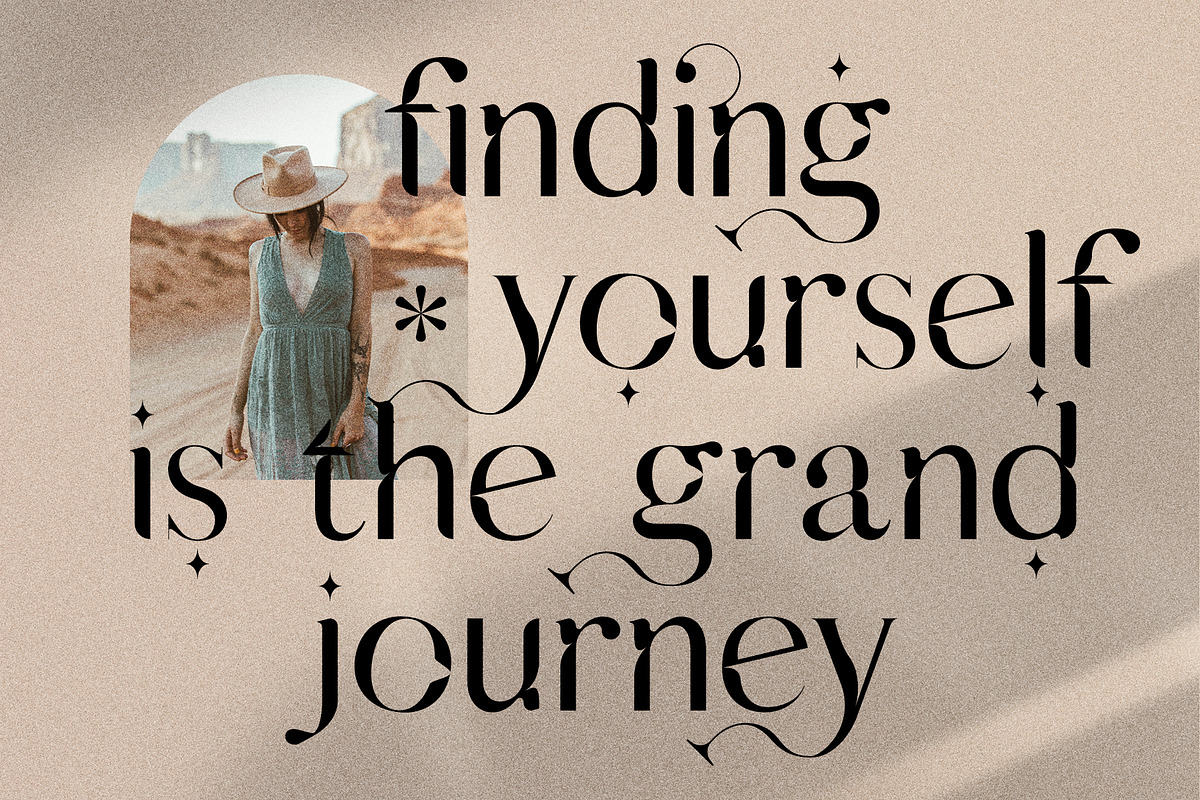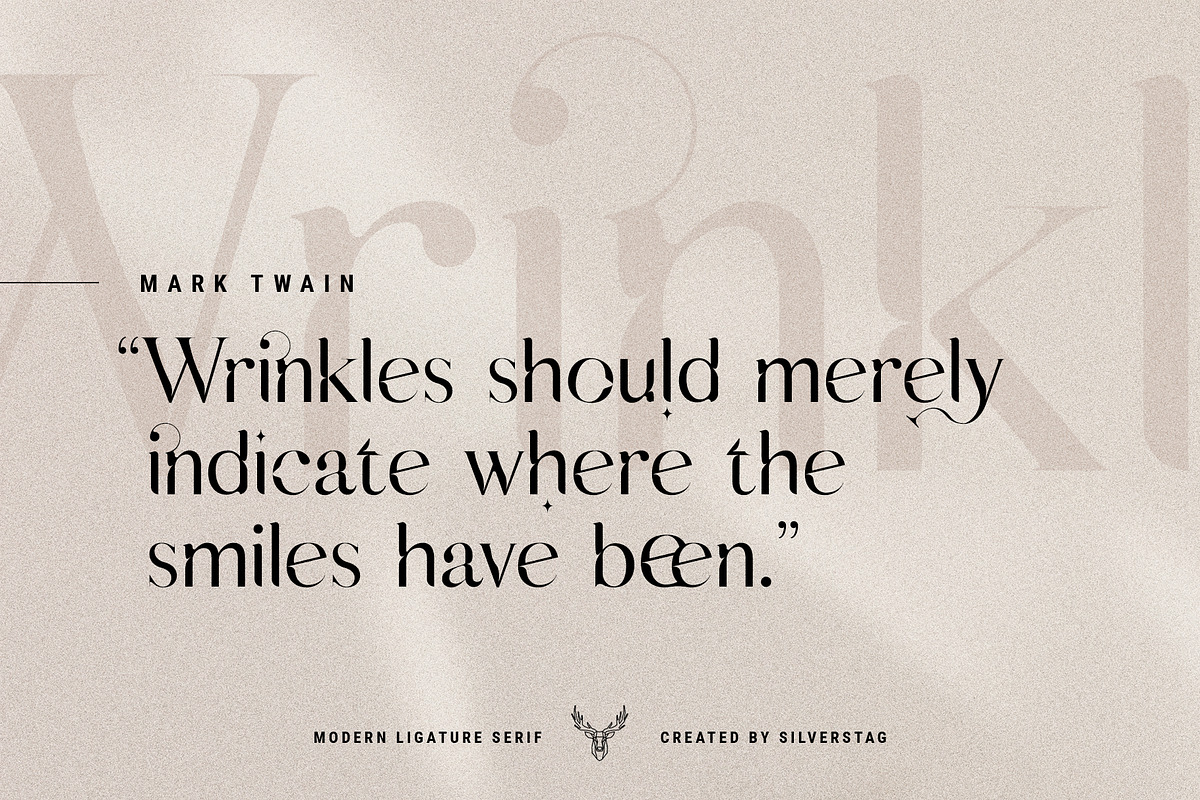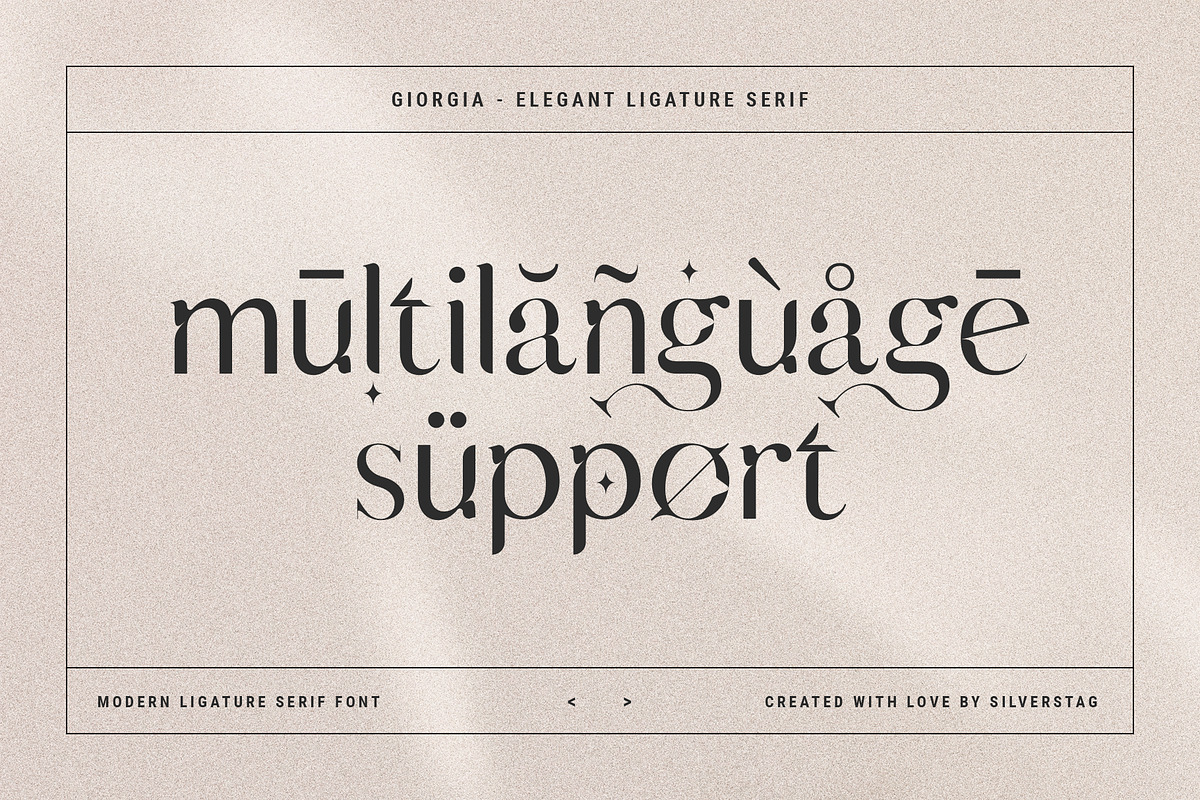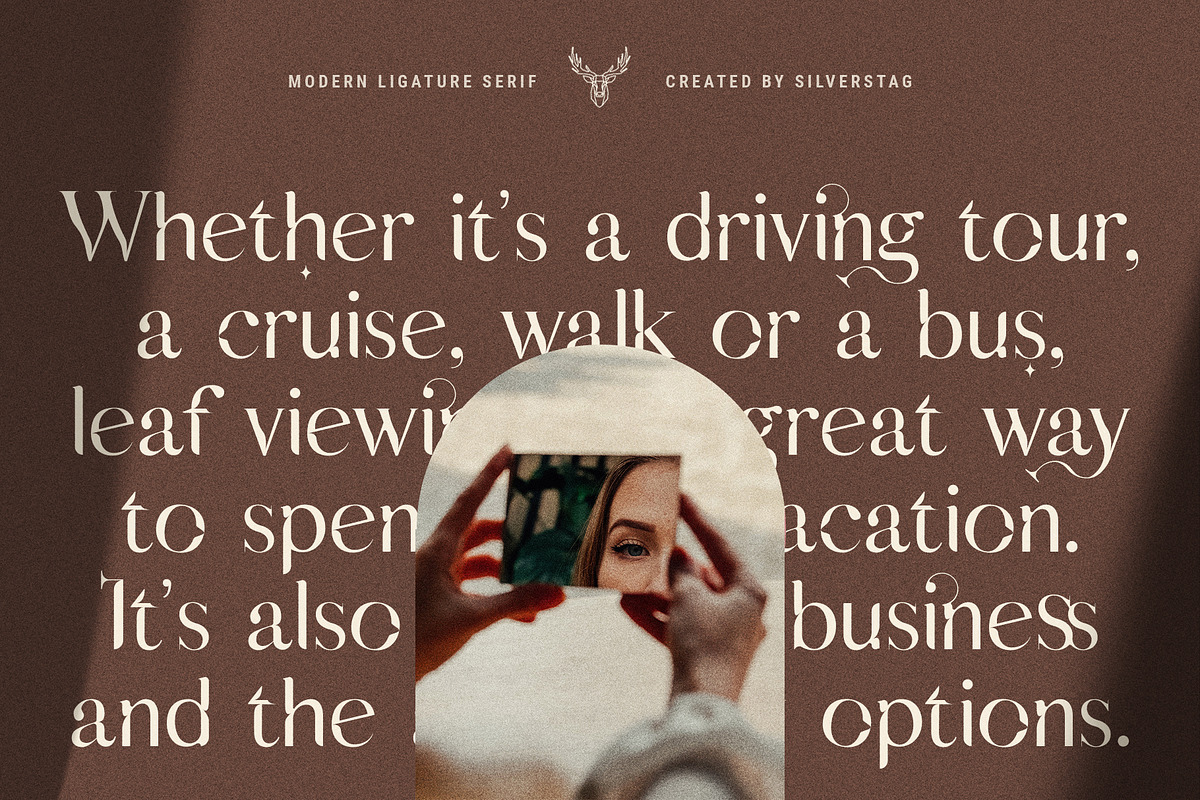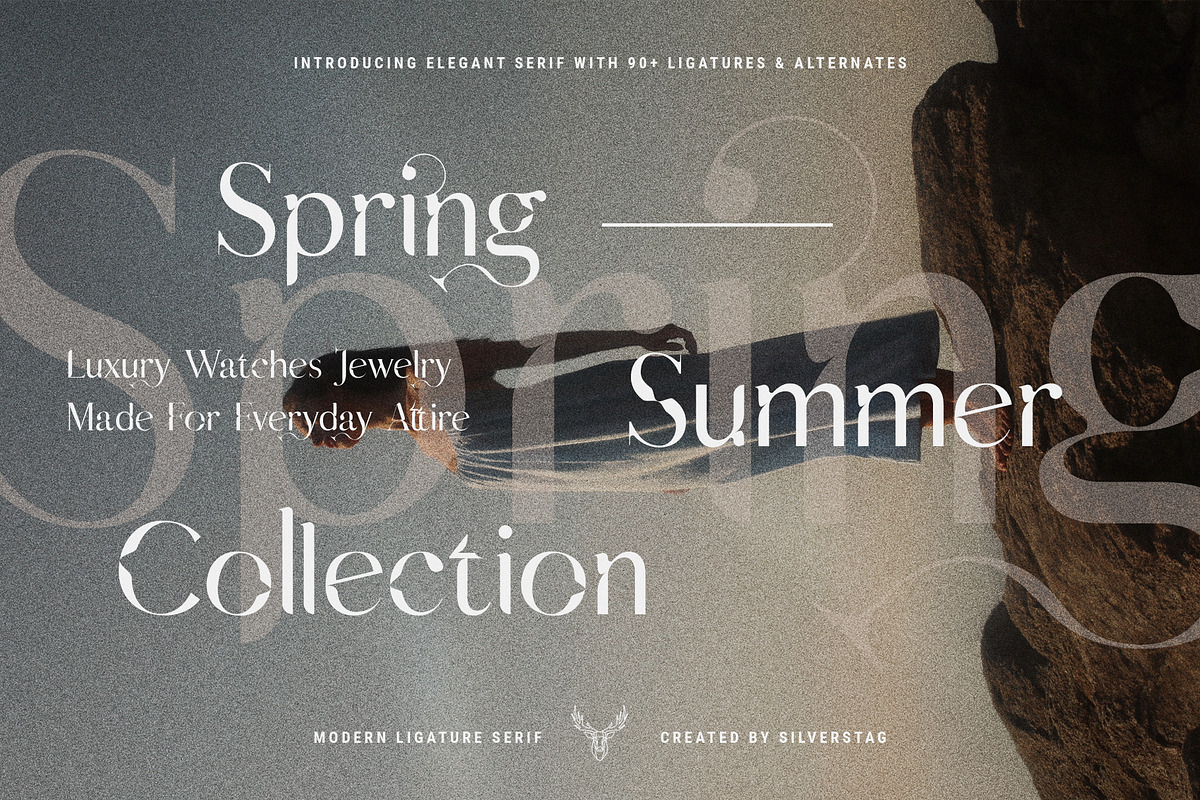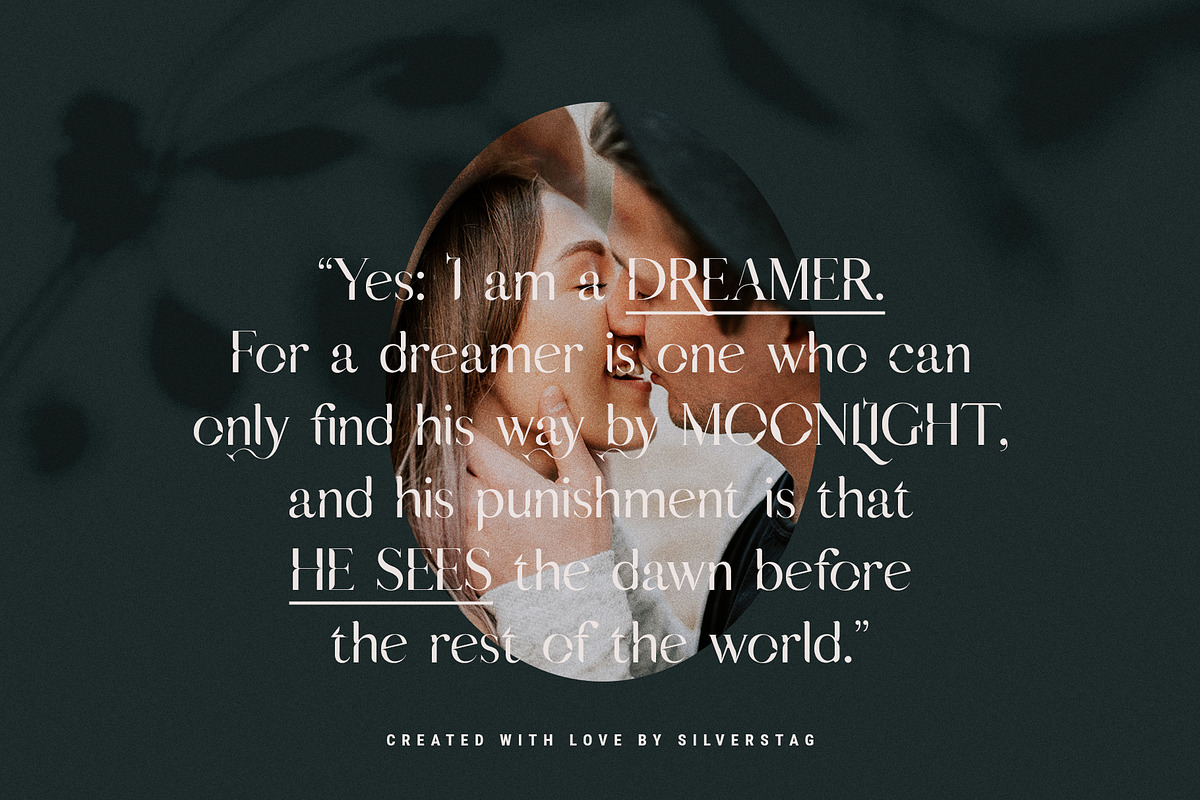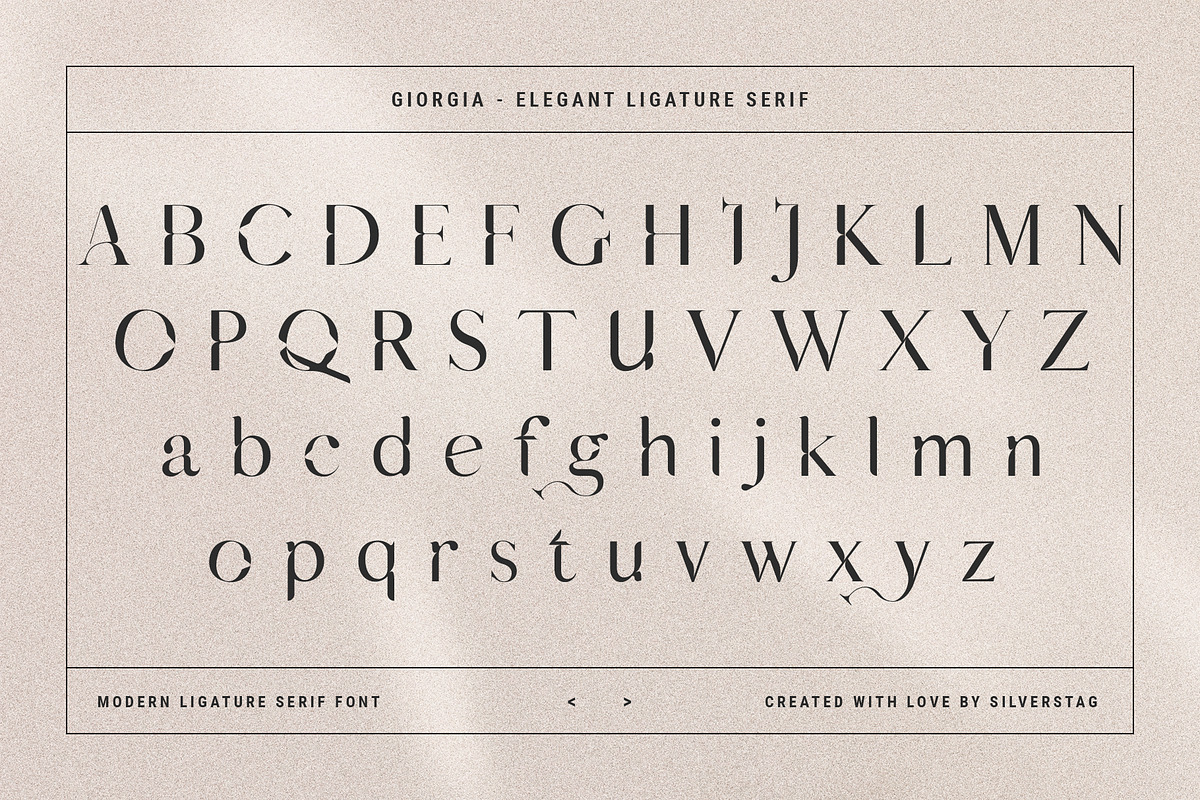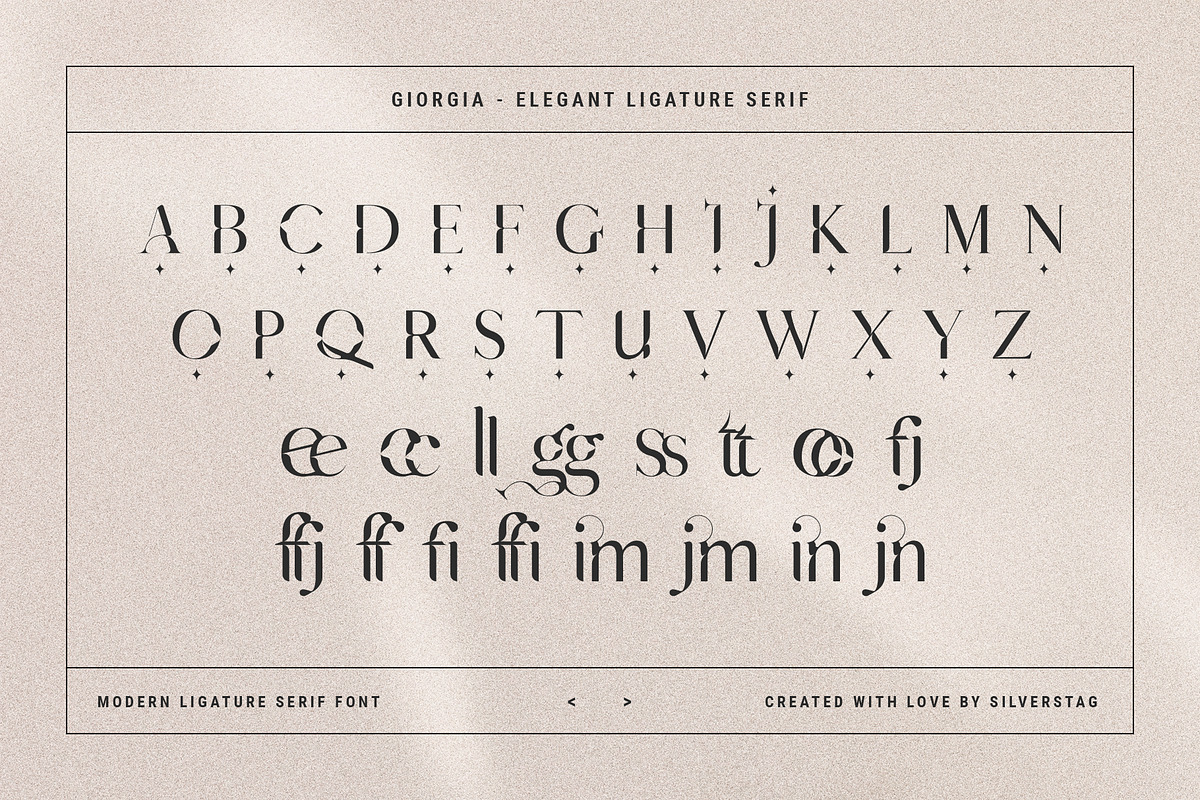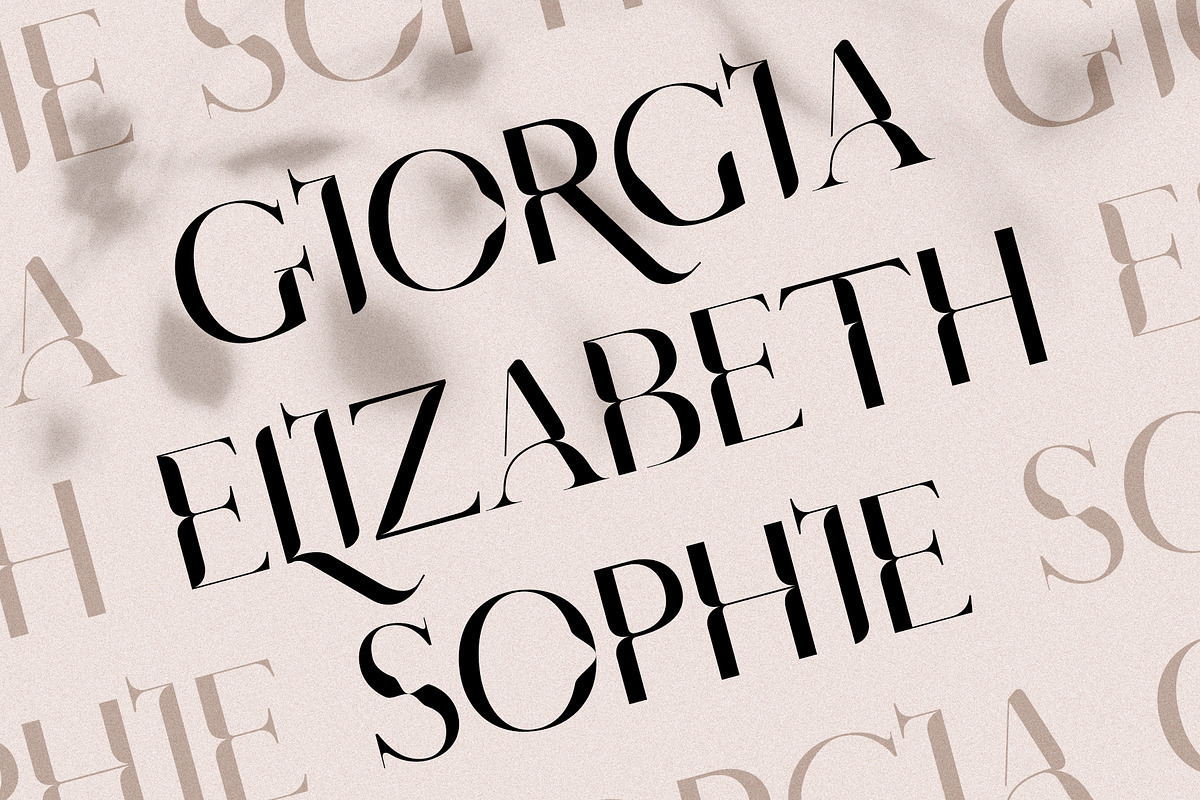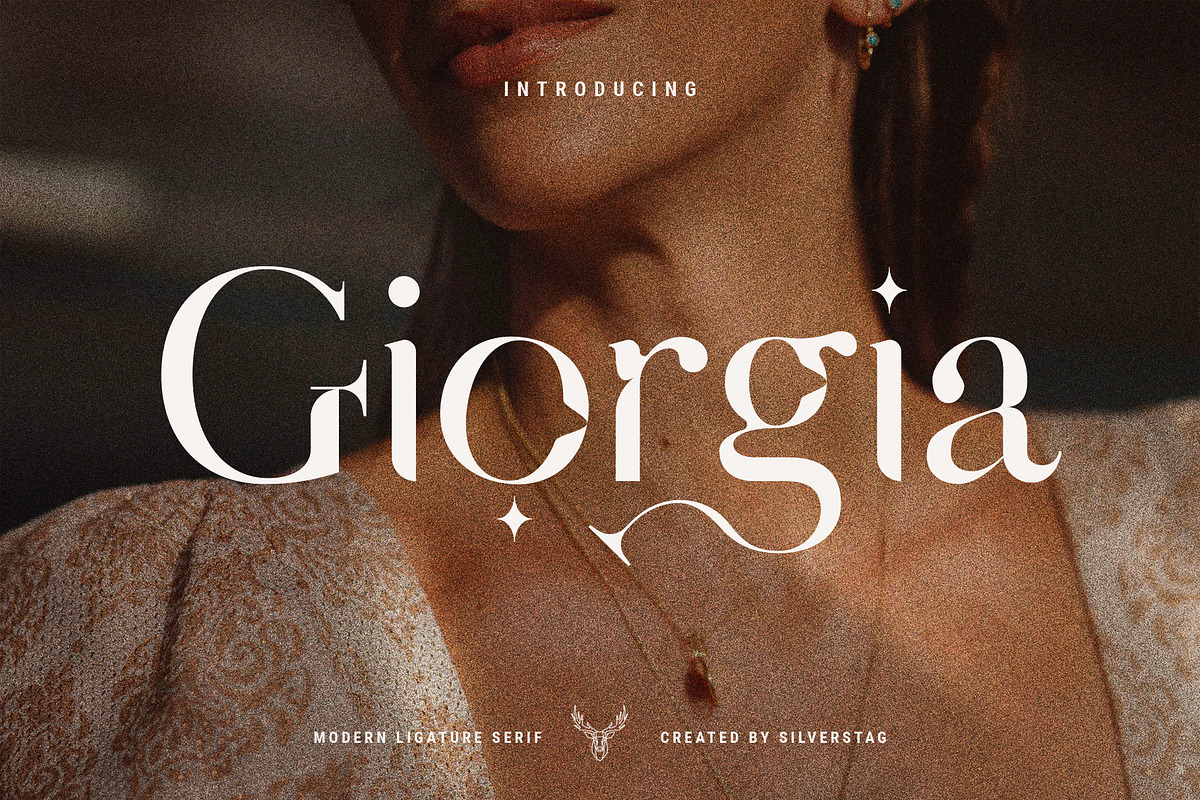
Giorgia - Elegant Ligature Serif
Buongiorno Giorgia! Buongiorno a tutti! Hey everyone, say HI to Giorgia, a brand new ligature serif font inspired by unbeatable elegance and beauty of Italy! I am really proud to offer you my new chic font that comes with over 90 ligatures and alternate letters. Each of the standard letters, ligatures, and alternates was handcrafted and made to fit other letters without exception. All letters are 100% unique with soft rounded edges that will give you a different look than any other serif font.
So, whether you have a client that needs a new chic logo, or you're designing your social media posts. Maybe you're preparing your wedding mood board, stationery, invitations, Giorgia Ligature font is just perfect for all of that and more. Check out the photos I have prepared for you to see what you can do with it and happy creating!
- 90+ Ligatures & Alternate letters
- Lowercase and Uppercase letters
LANGUAGE SUPPORT:
The following letters are included: A À Á Â Ã Ä Å C Ç D Ð E È É Ê Ë I Ì Í Î Ï N Ñ O Ø Ò Ó Ô Õ Ö U Ù Ü Ú Û W Ẃ Ŵ ẄẀ Y Ý Ÿ Ỳ Ÿ Æ Œ ß Þ þ in uppercase and lowercase so Vicky Christina supports a huge number of languages.